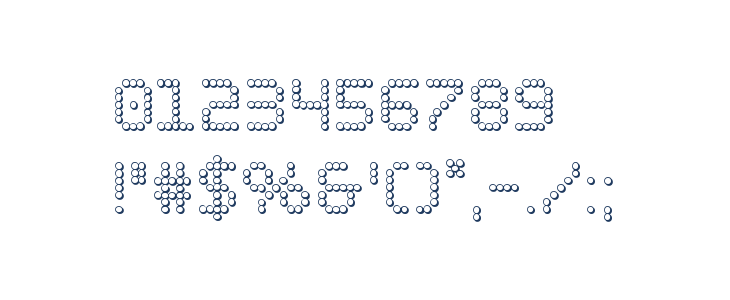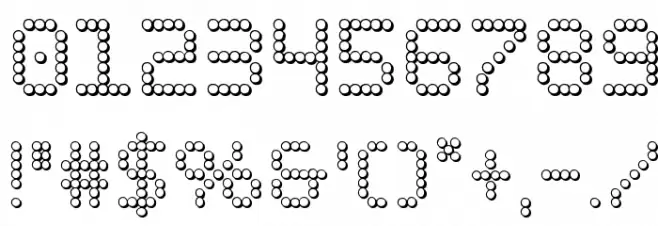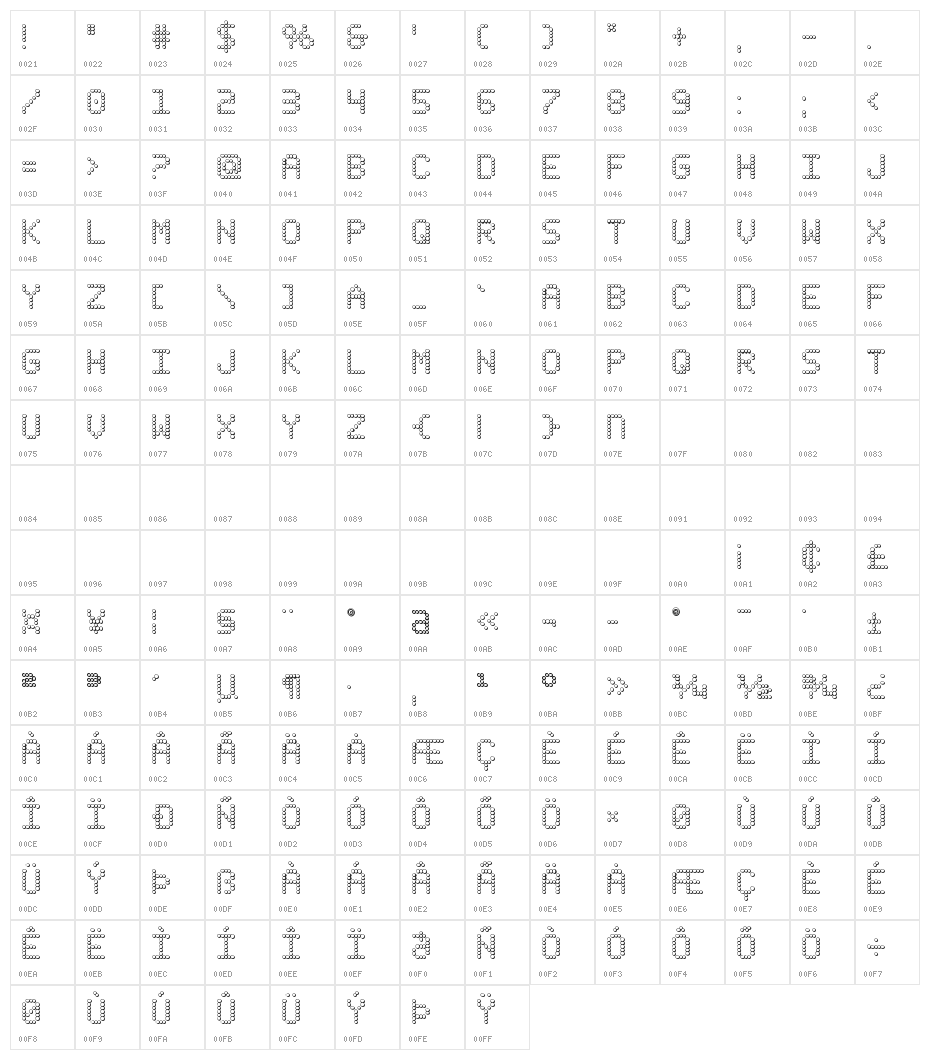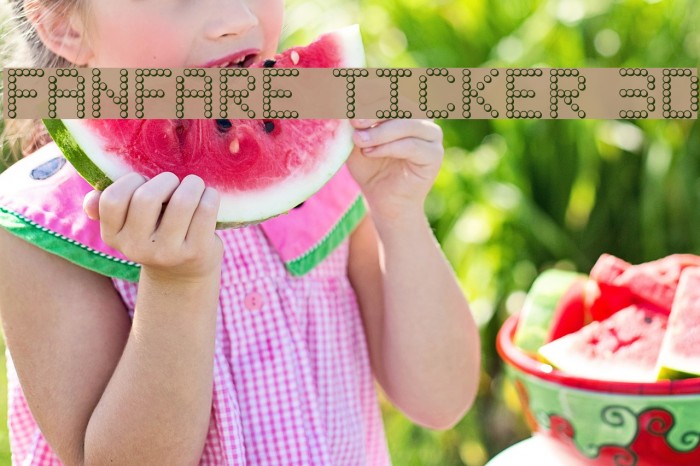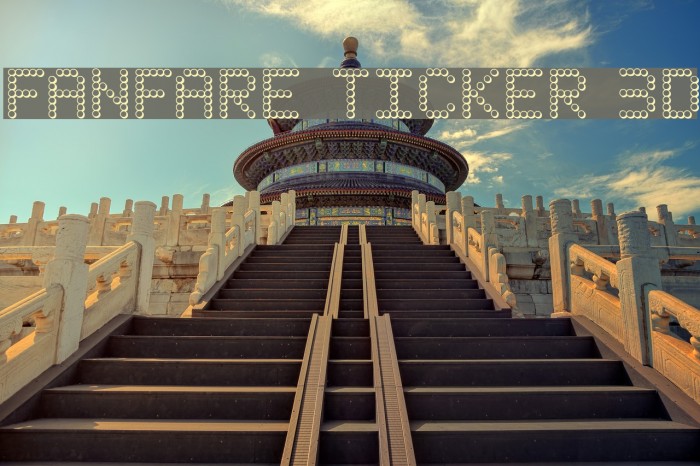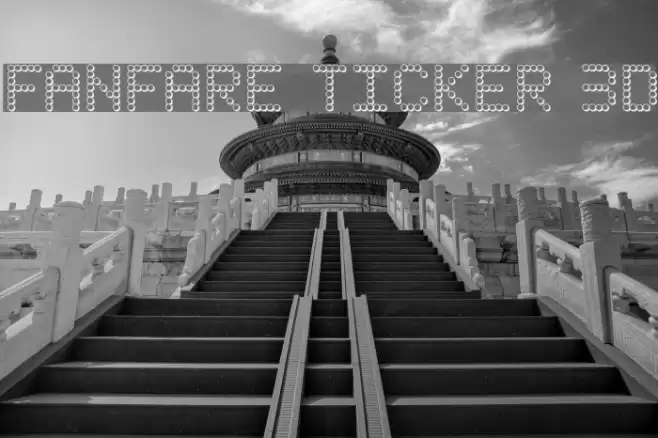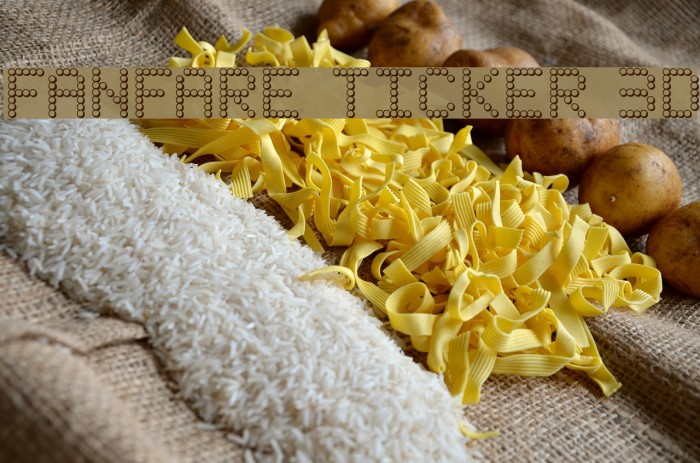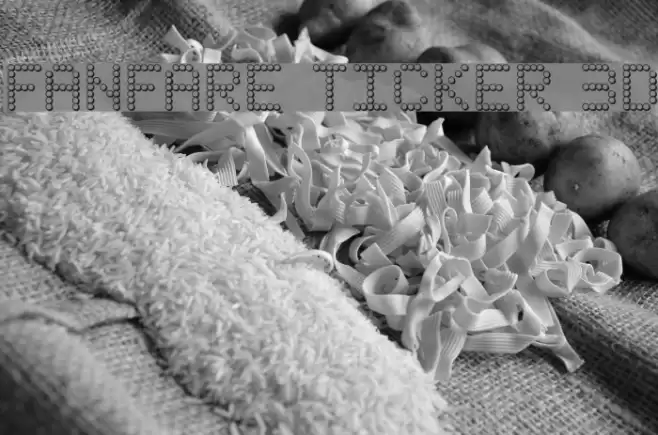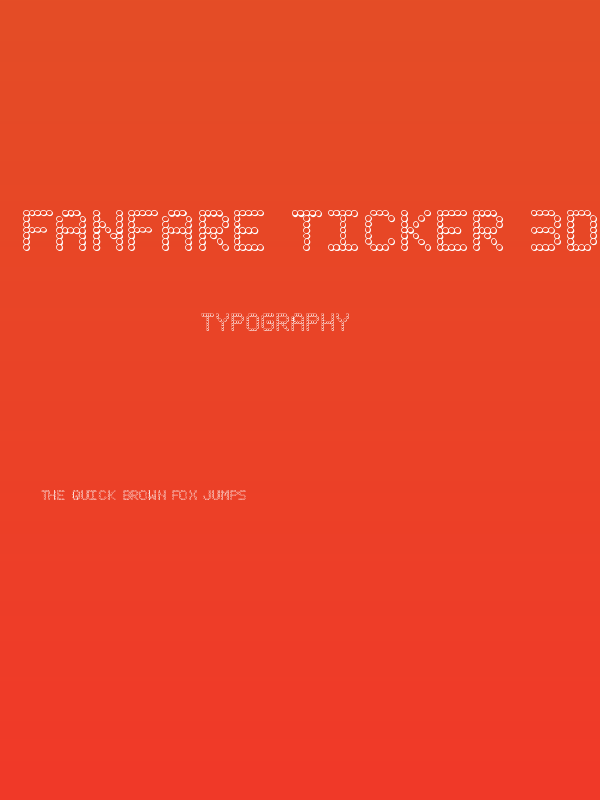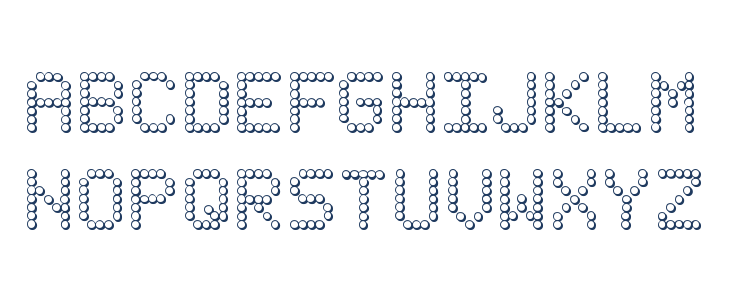
Fanfare Ticker 3D Font
Fanfare Ticker 3D Description
This font features a unique design where each character is constructed using a series of small, circular dots arranged in a grid-like pattern. The overall appearance is reminiscent of a digital display or ticker tape, giving it a three-dimensional effect. The characters are evenly spaced and maintain a consistent size, creating a uniform and cohesive look. The font is highly legible, with each letter and number clearly defined by the arrangement of dots. This distinctive style makes it suitable for creative and modern design projects, where a futuristic or technological theme is desired.
| Proposed Projects | Ideal for digital displays, tech-themed posters, modern branding, and creative graphic design projects. |